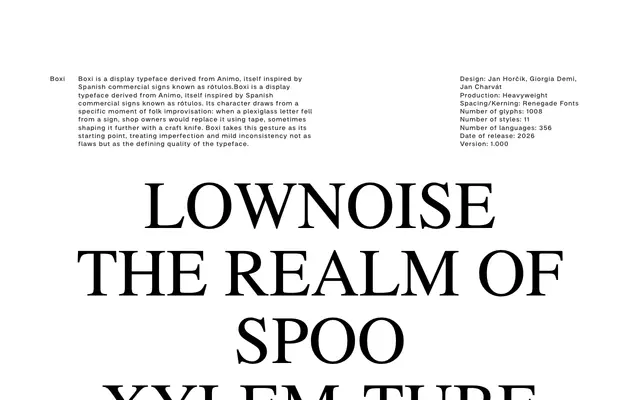
Boxi
Heavyweight · Jan Horčík, Giorgia Demi, Jan Charvát · 2026
A display typeface derived from the improvised tape-and-knife letterforms found on repaired Spanish commercial signs, treating mild inconsistency as a deliberate formal quality.
Boxi descends from Heavyweight's Animo, which drew from Spanish rótulos signage, but pushes into more specific folk territory: the ad hoc repair of fallen plexiglass shop letters using tape, sometimes cut further with a craft knife. That improvisational gesture becomes the typeface's organising principle, with irregularity treated as a feature rather than a defect. Across 11 styles, 1,008 glyphs and support for 356 languages, it covers a wide range of use cases while retaining the rawness of its source material.
Boxi is a display typeface rooted in folk lettering tradition, specifically the improvised tape-and-knife repairs of fallen plexiglass shop signs in Spain. Its deliberate imperfection and mild inconsistency place it firmly in the vernacular display category.